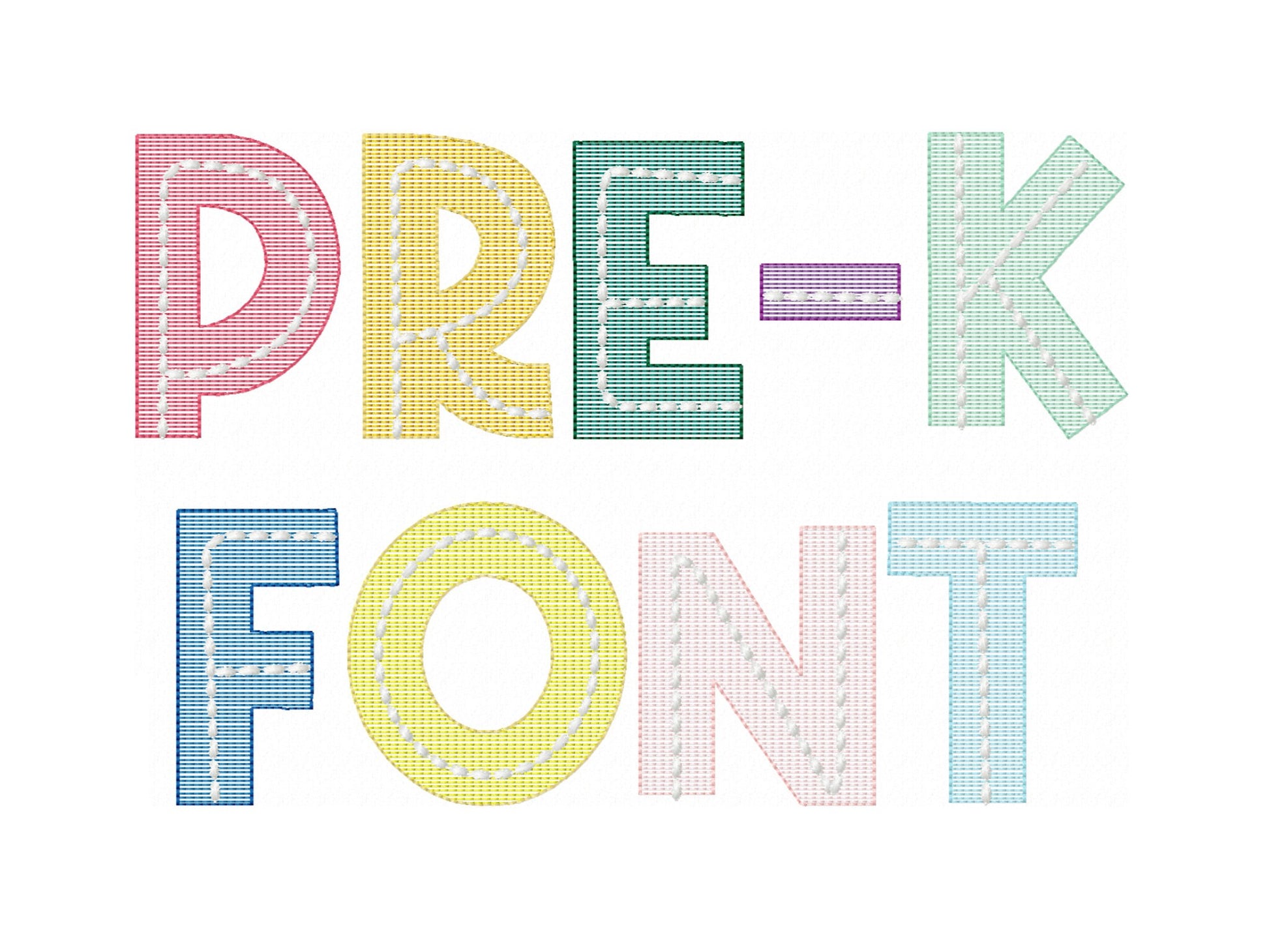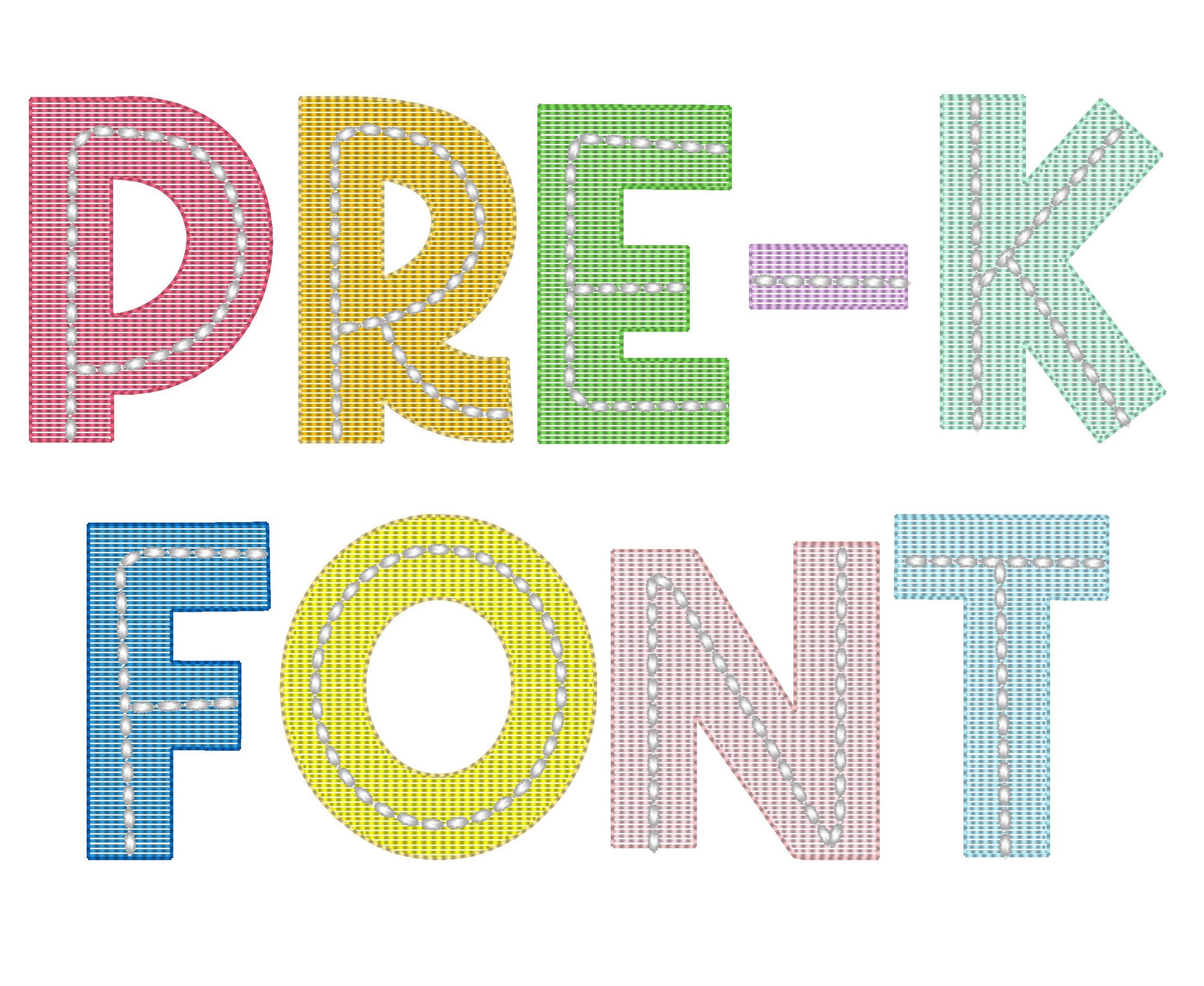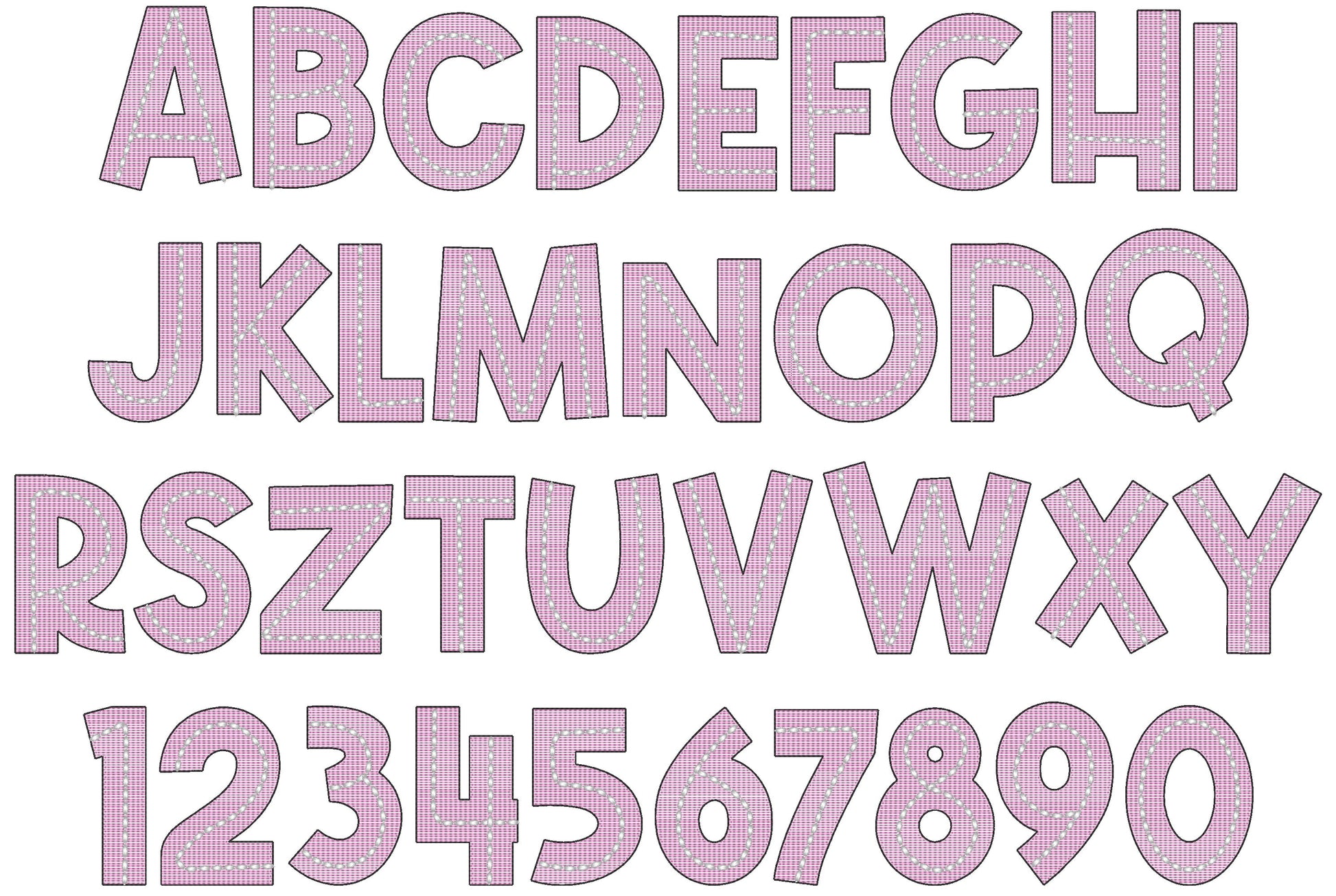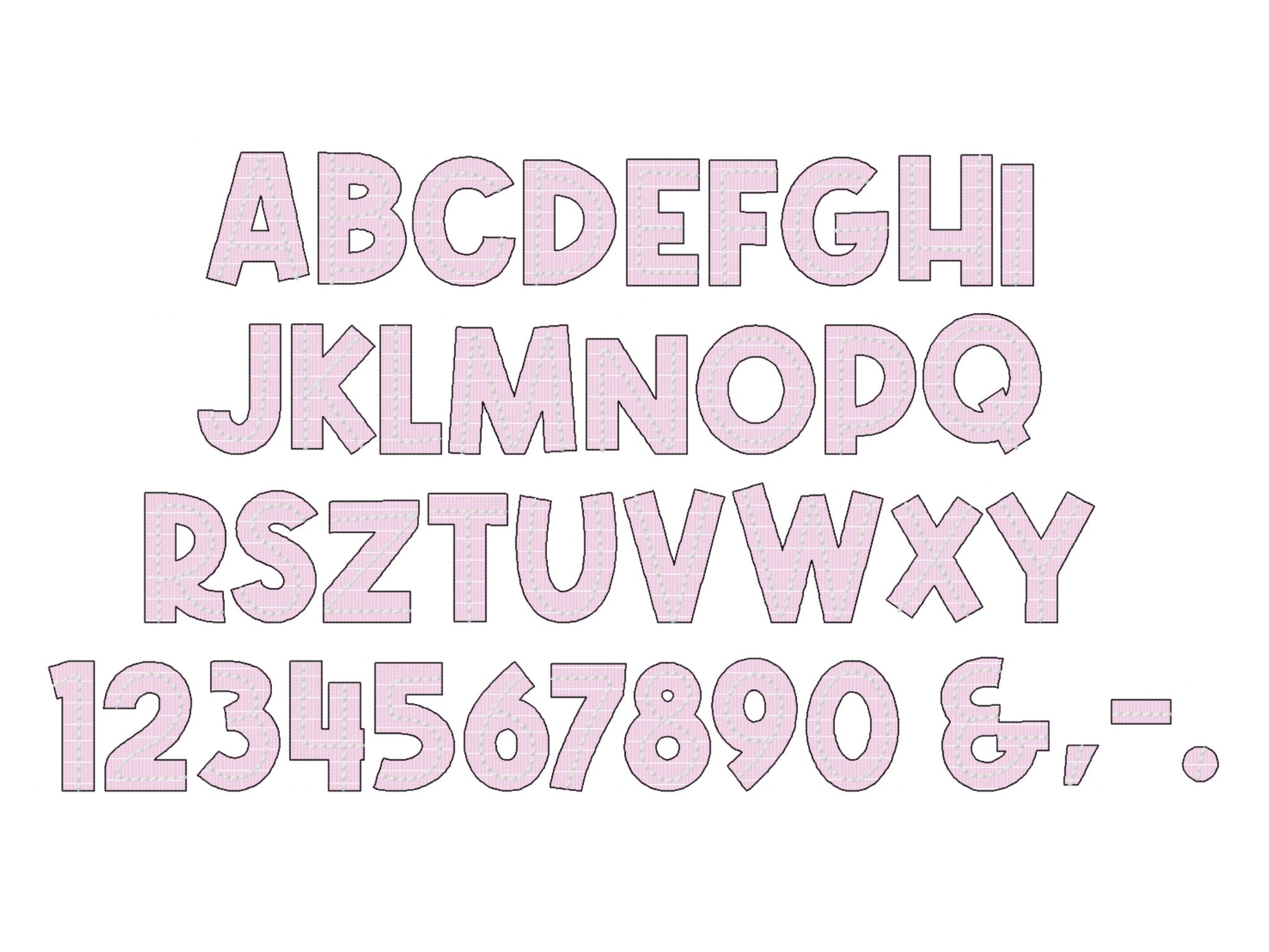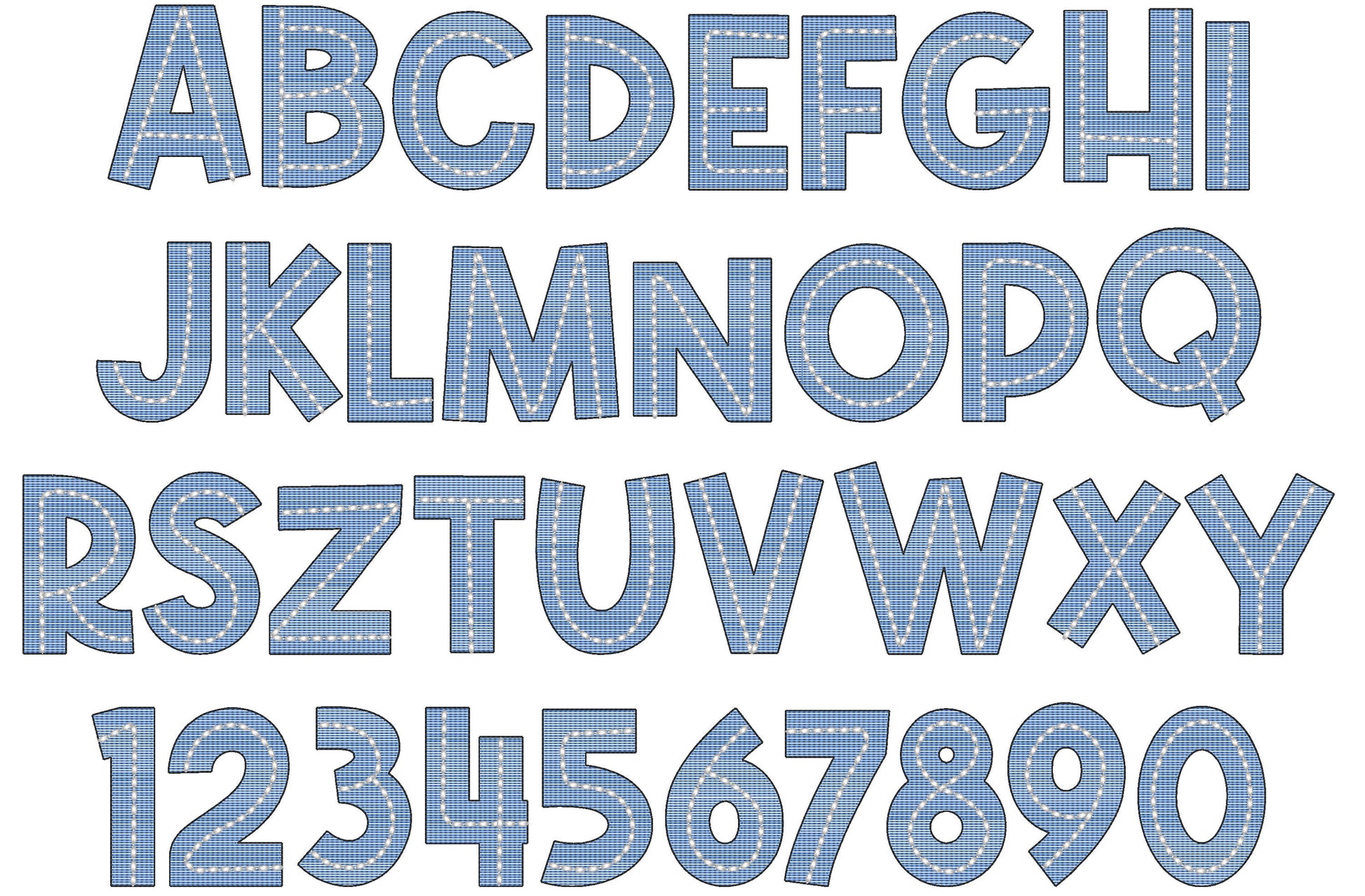
Or click to open the linkLight stitch embroidery alphabet School Sketch stitch embroidery Font Bean stitch machine embroidery designs sweetie 1.5" thru 5 inches, BX